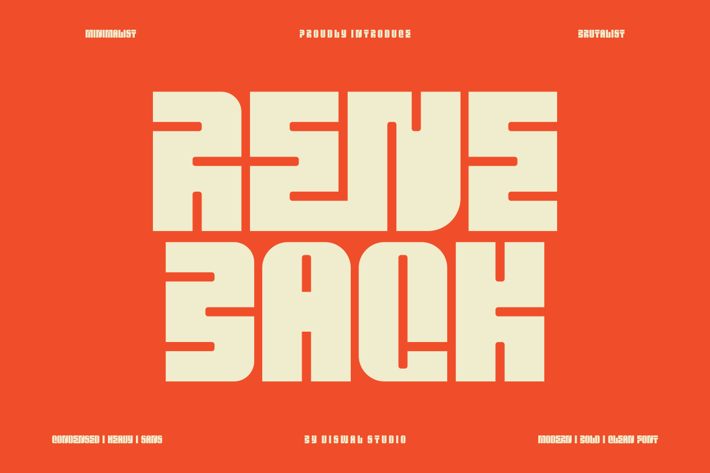
Rene Back - Heavy Bold Font
Presenting Rene Back - Font is suitable for badge, labels, logo, branding, magazine, poster and etc. Our fonts have Uppercase & Lowercase, Numeral & Punctuation, Multilingual support and Opentype Features. For Amazing designs you can mix with other fonts as a complement.